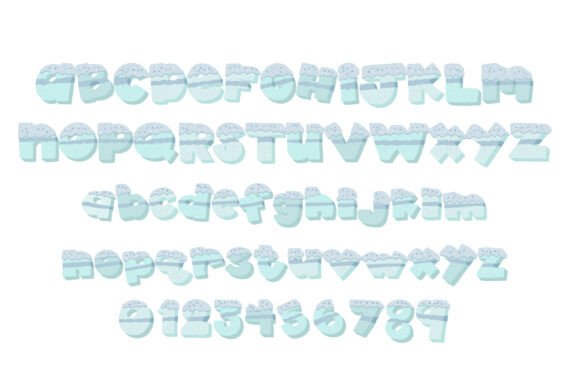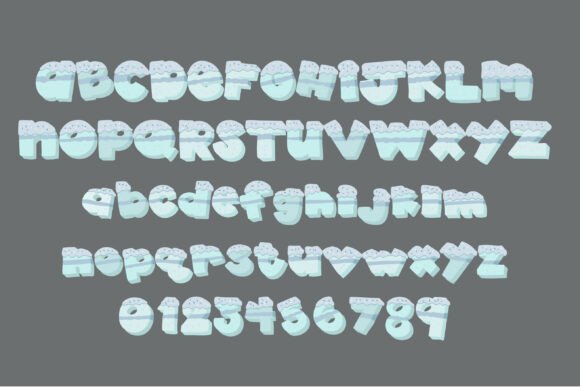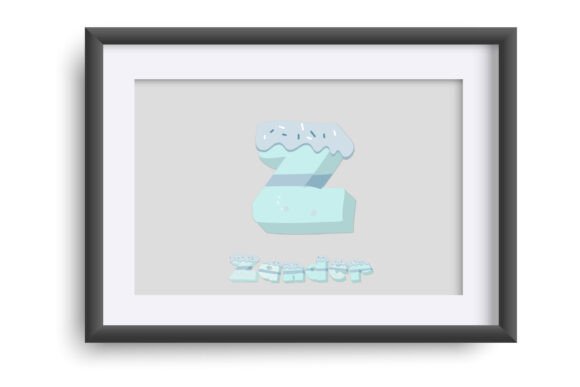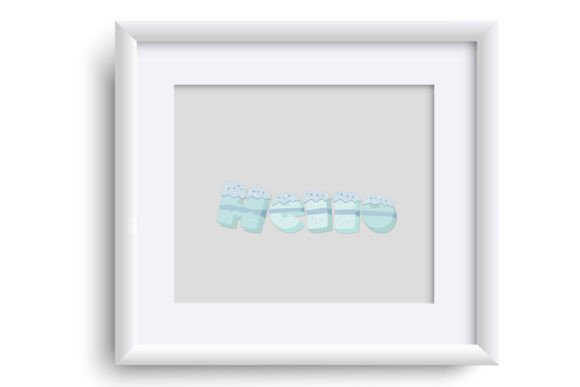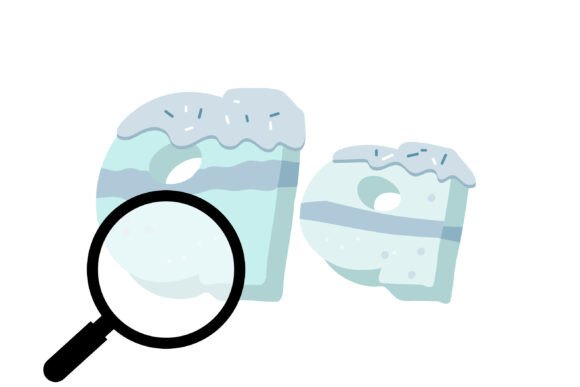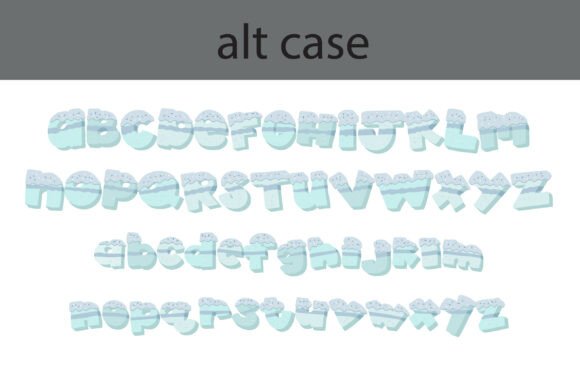
Introduction to Blueberry Cakey Font
Celebrate the art of the bake with Blueberry Cakey, an HD-quality full-color SVG font designed for maximum “sweet-tooth” appeal.
This typeface features chunky, “cake-slice” letterforms with layered blue-and-mint sponges, topped with thick dollops of frosting and delicate blueberry sprinkles With its “artisanal-cafe” soul and high-definition texture, Blueberry Cakey is the premier choice for independent bakery menus, boutique confectionery packaging, celebratory birthday stationery, and cinematic “baking-tutorial” digital headers.